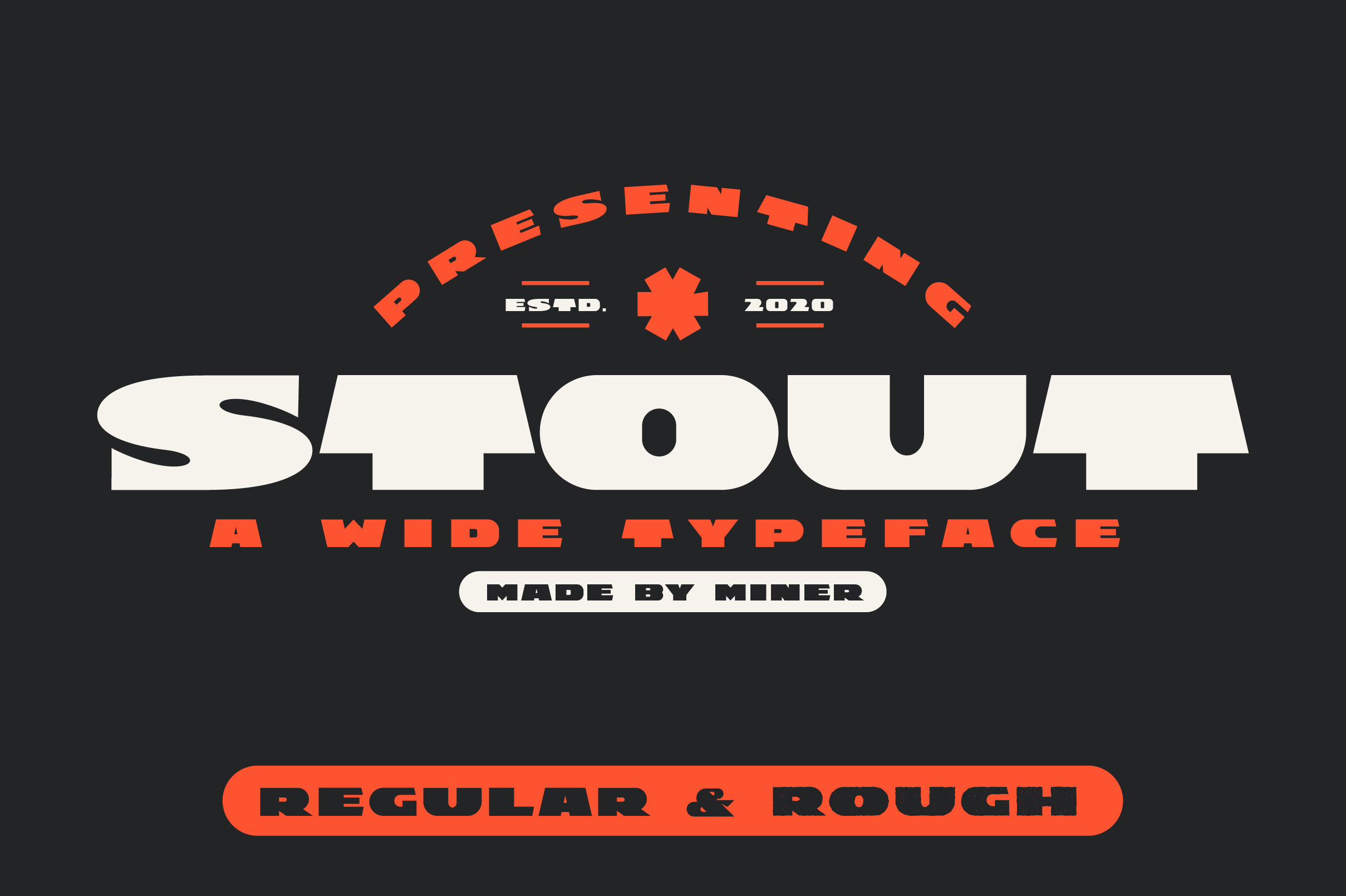
STOUT : Wide Vintage Modern Typeface
Stout is a wide type family. Every letter has been refined to give you the finest bold and wide font on the market. STOUT works well for modern logotypes, while STOUT Rough has a more vintage vibe. STOUT Rough has an organic feel that helps bring a handcrafted element to your work.